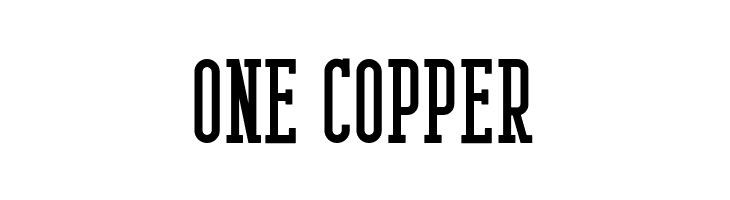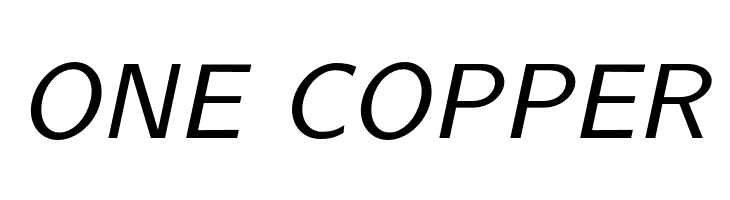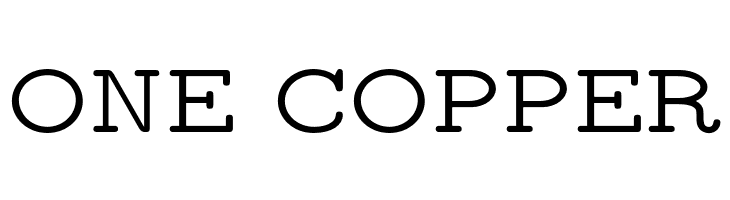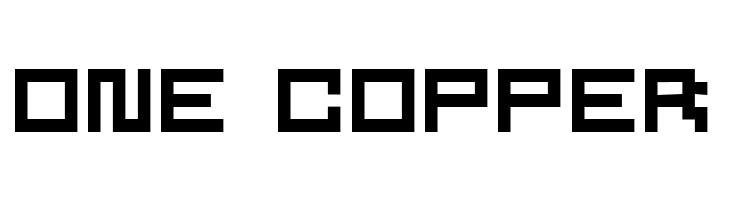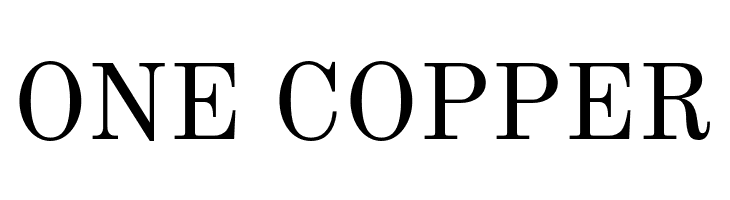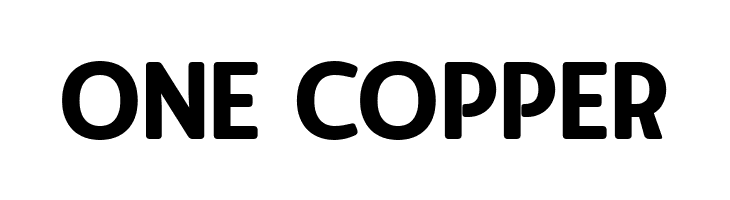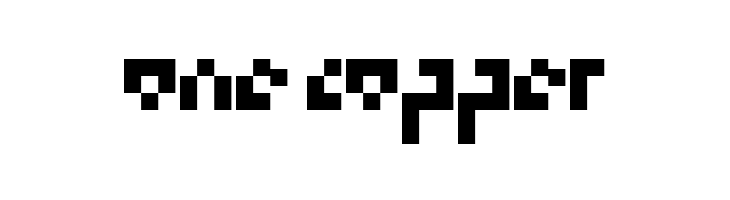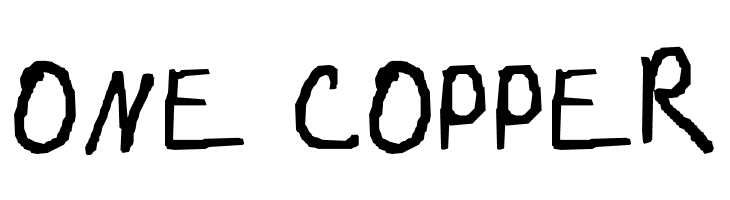
A bold serif font with a modern yet classic appeal.
A futuristic and geometric font with abstract letterforms.
A modern, oblique sans-serif font with clean lines and a dynamic appearance.
A slanted, monospaced font with a modern and dynamic style.
A clean, monospaced font ideal for coding and technical documentation.
A bold, angular font with edgy, dramatic elements.
A decorative font featuring musical instruments and equipment as characters.
A creative and abstract font featuring uniquely styled question marks.
A clean, bold font perfect for labeling and organizing.
A pixelated, retro-style font with a blocky, digital appearance.